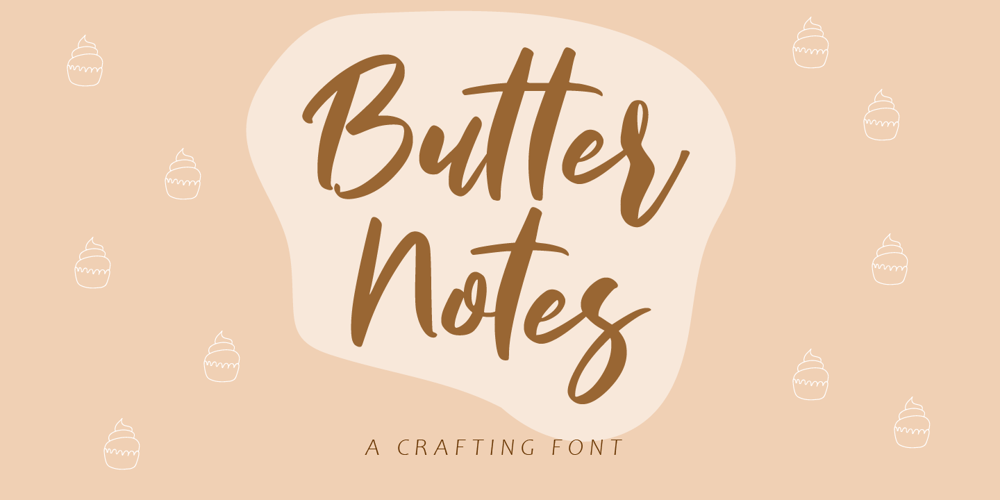
Butter Notes Font Family was designed by Amin Maryono and published by Aminmario Studio. Butter Notes contains 2 styles and family package options. Butter Notes is a sweet and jolly crafting font.This font is great for your creative projects such as watermark on photography, and perfect for logos & branding, photography, invitation, watermark, advertisements, product designs, stationery, wedding designs,label, product packaging, social media, movie titles, books titles, a short text even a long text letter and good for your secondary text font with sans or serif. And also for special events or anything that need handwritting taste.Thanks for checking out this font. I hope you enjoy it!